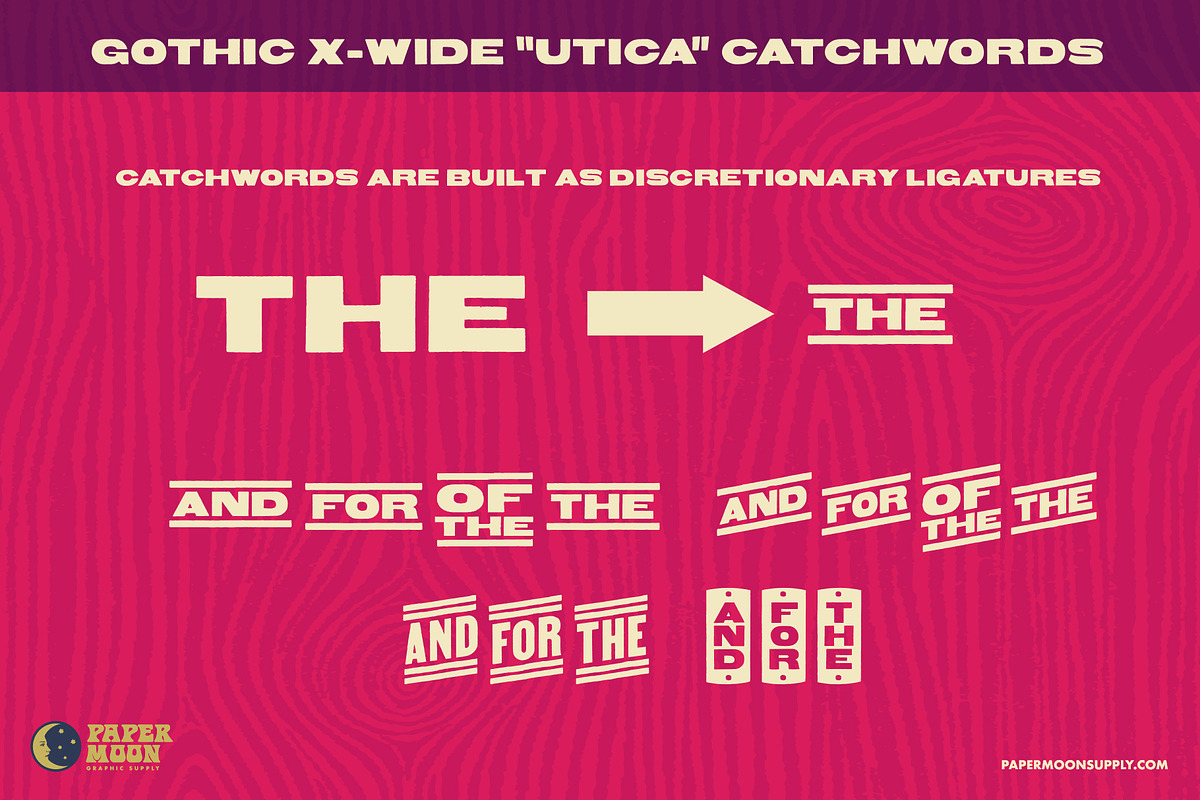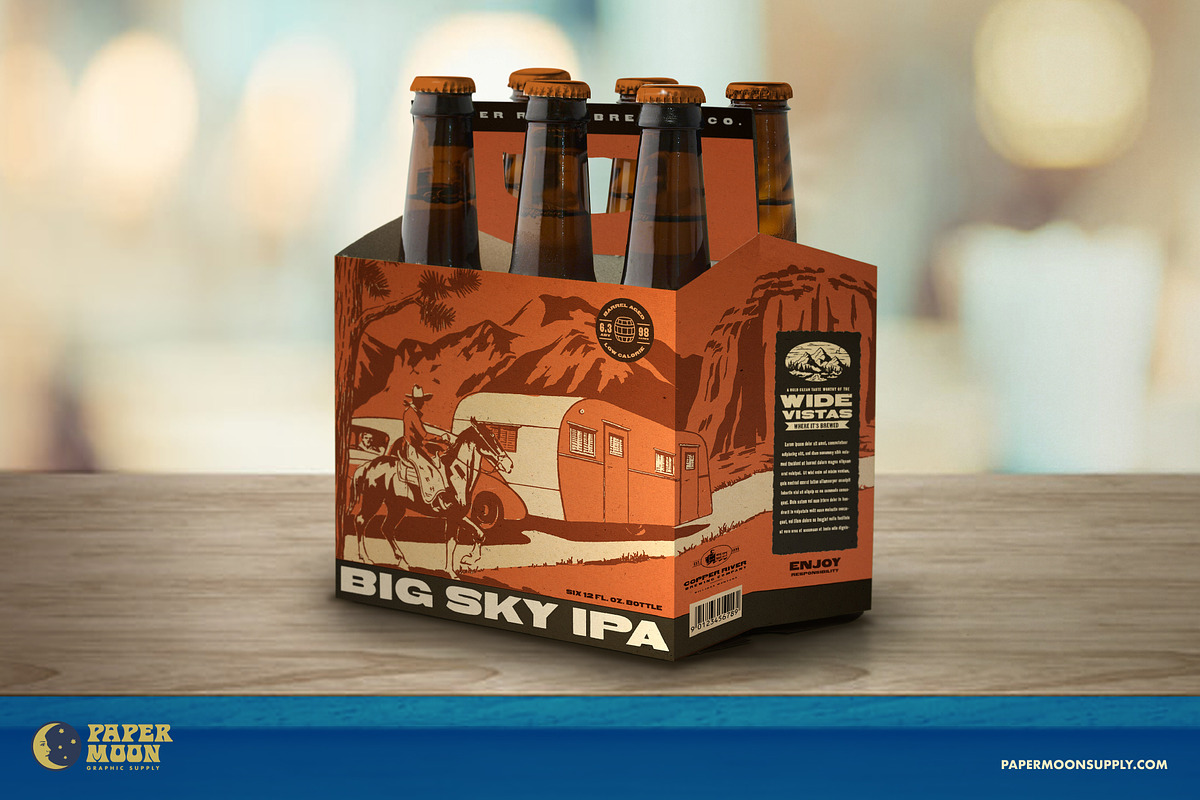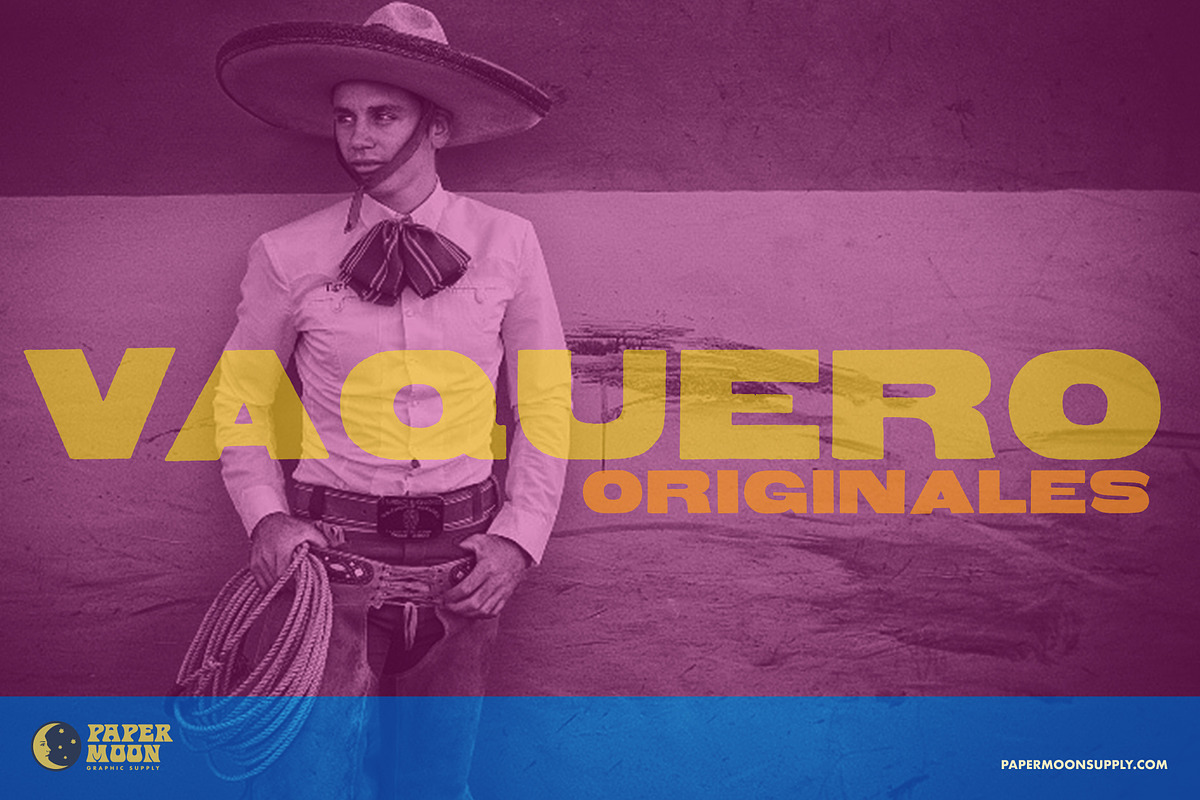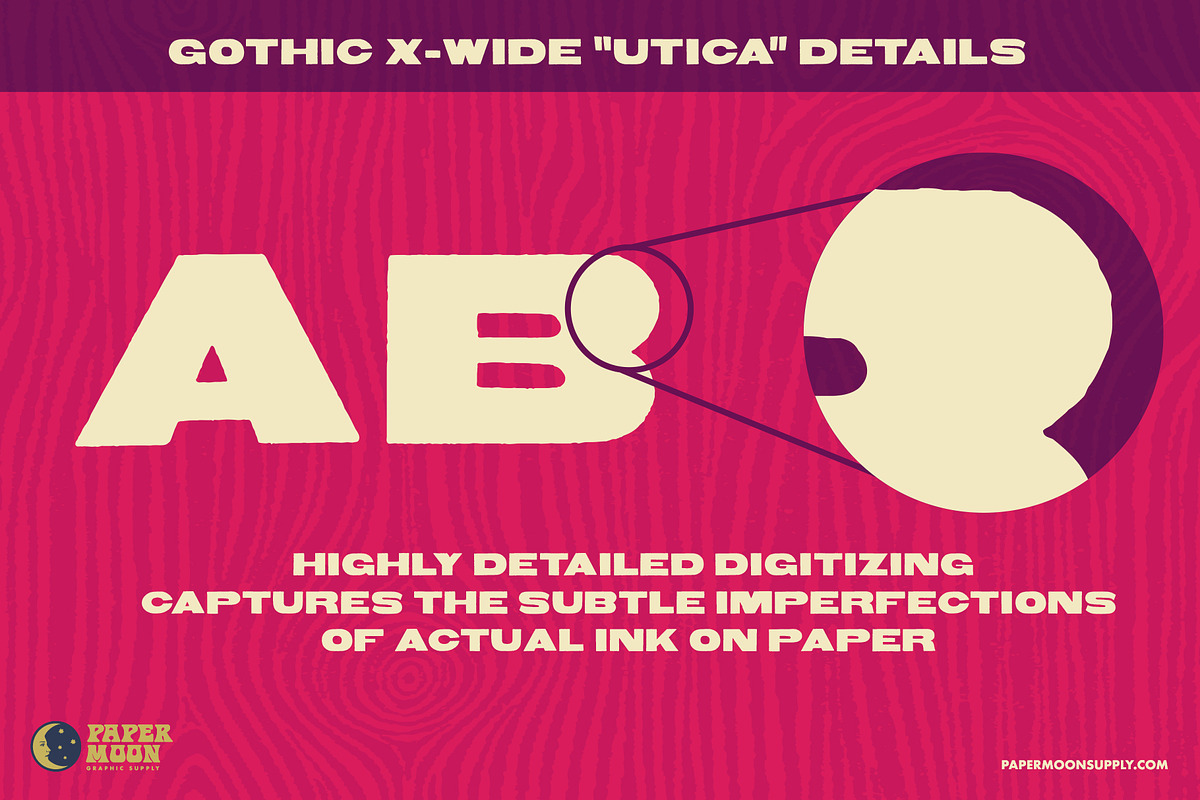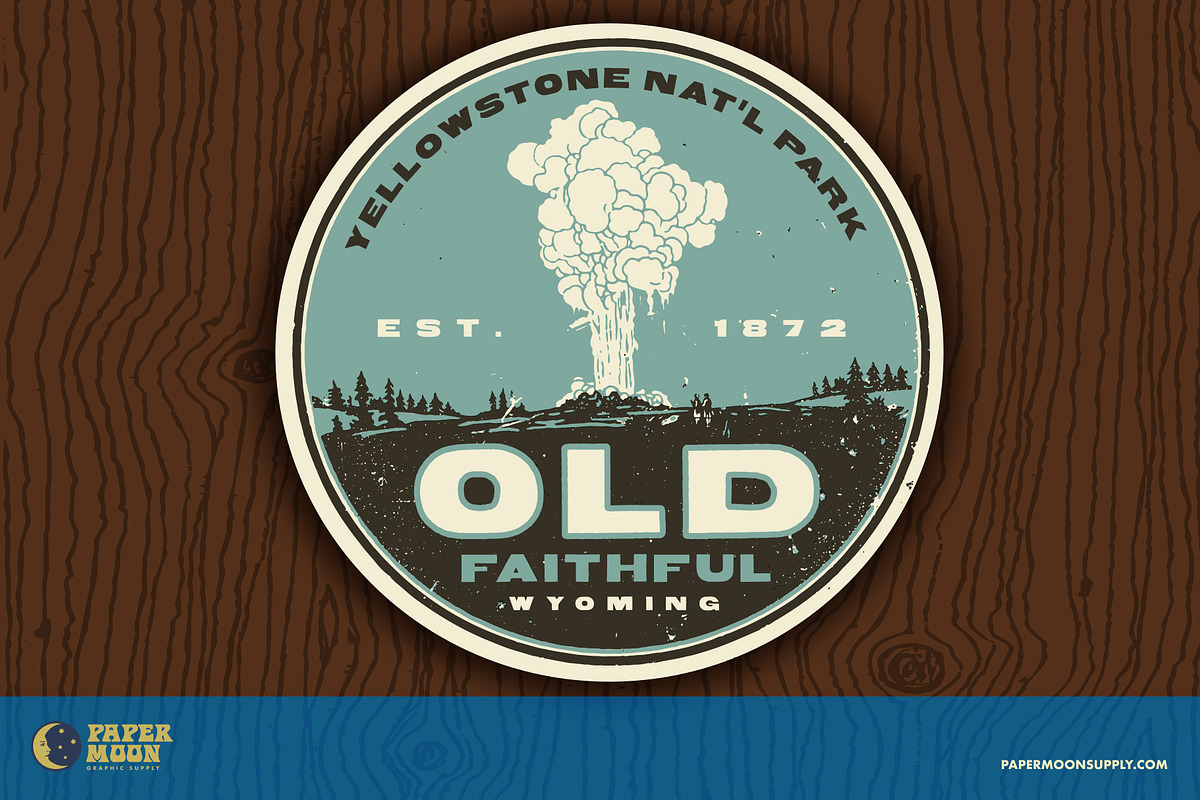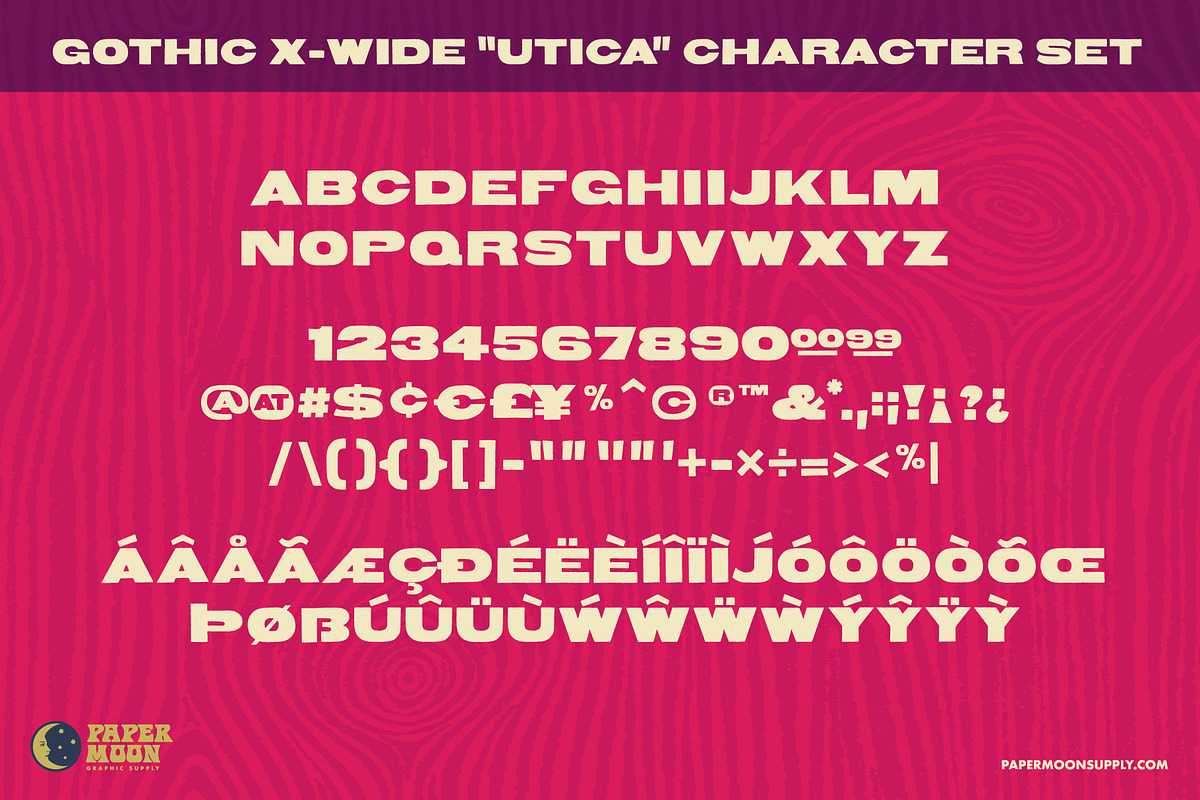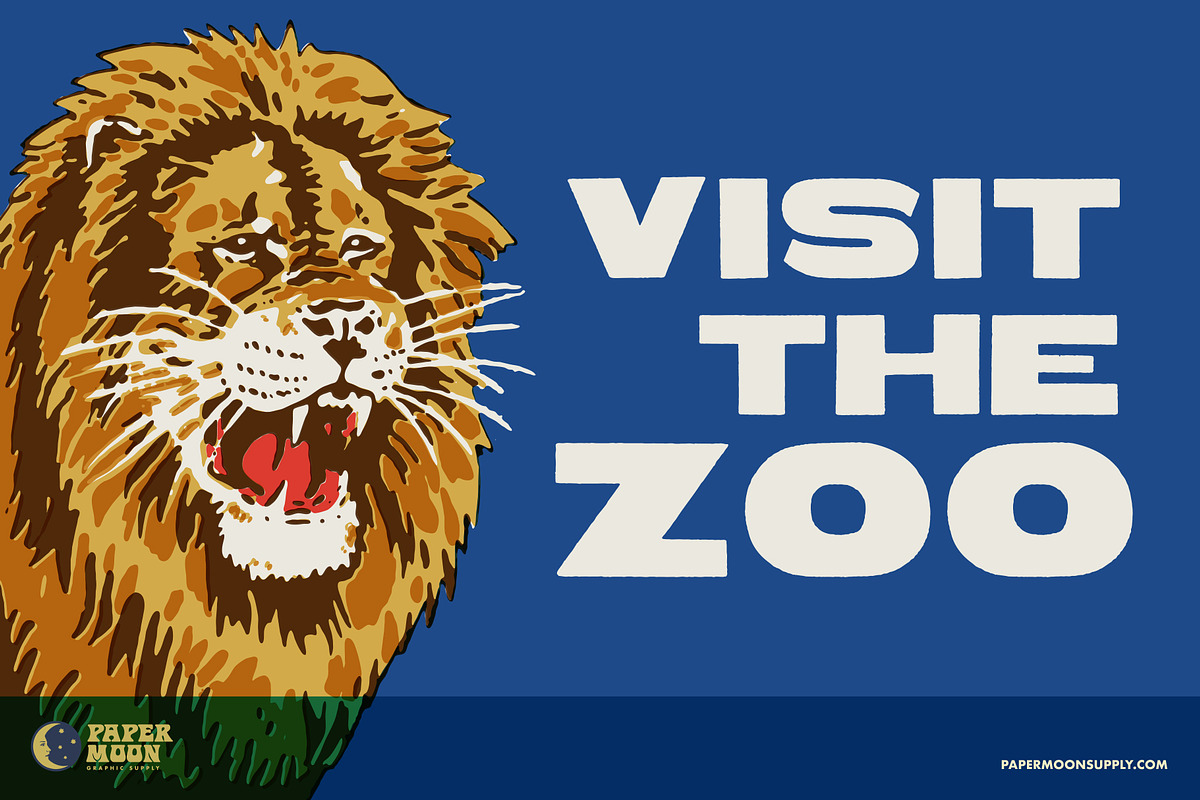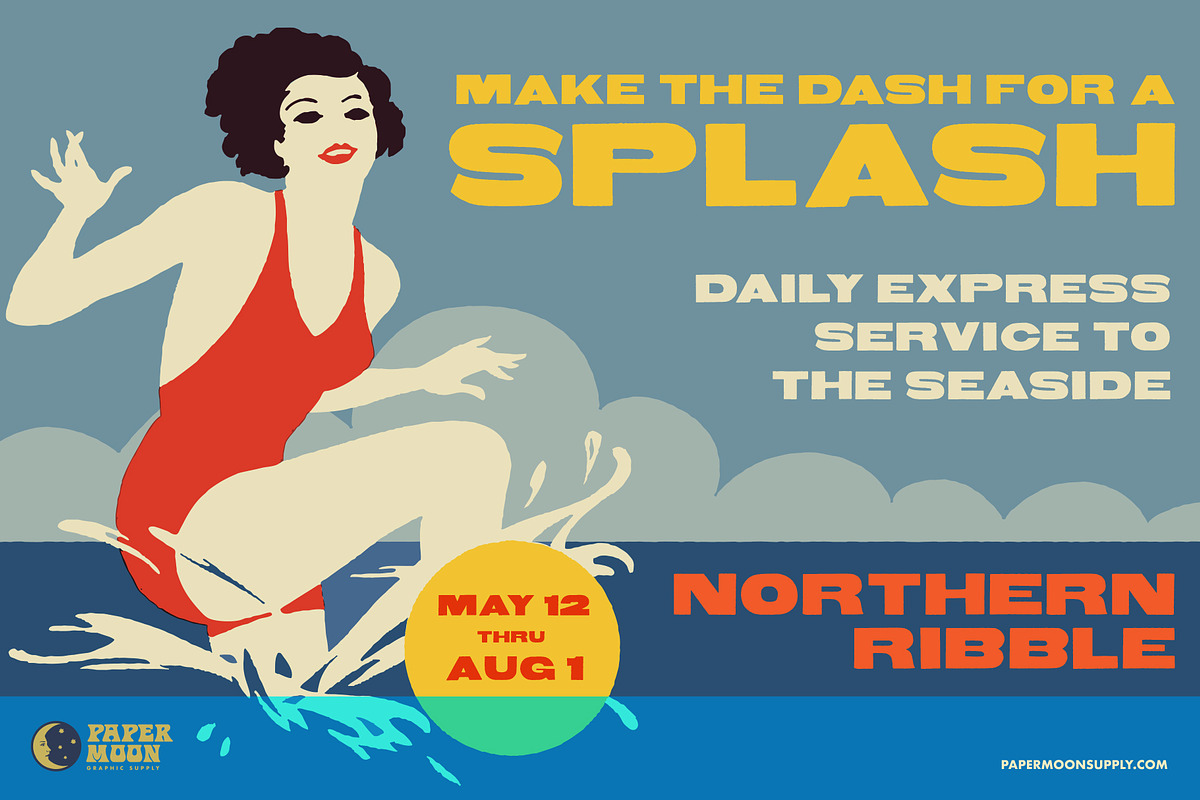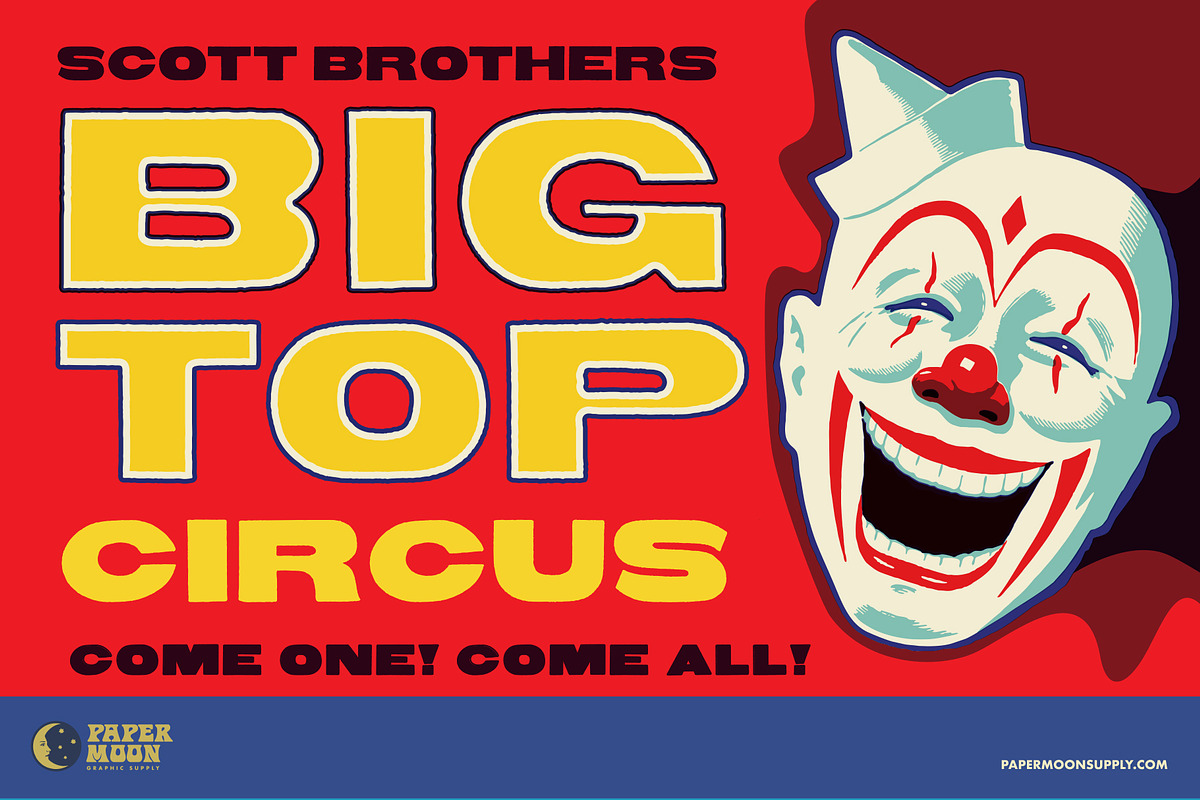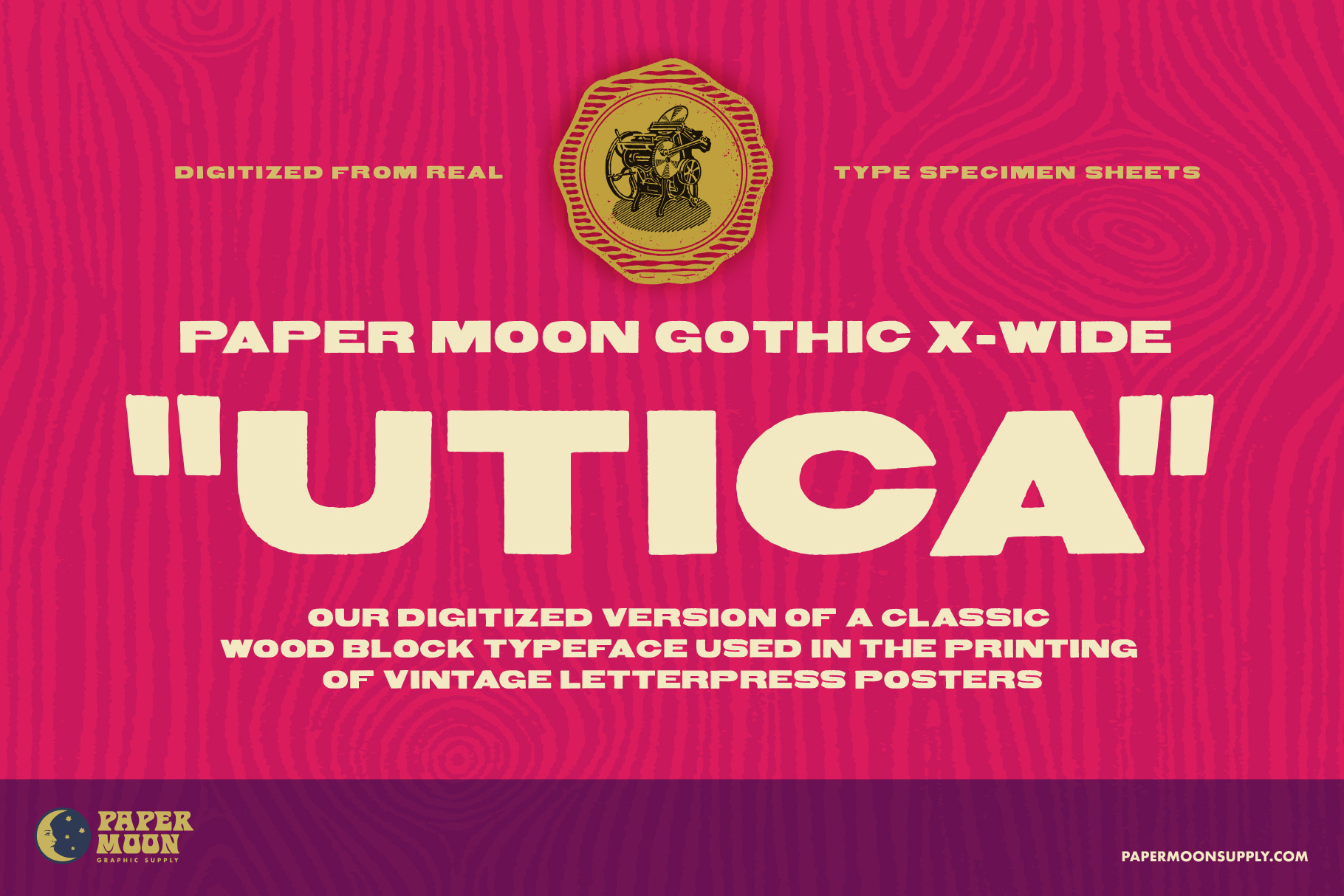
Utica Letterpress Font
A new digitized letterpress font seen on vintage concert posters and show prints.
Utica was inspired by classic hand-set wood type used on vintage letterpress concert posters, broadsides, playbills, and show prints by print-houses like Globe Poster, Enquirer Printing, and Hatch Show Print.
- Digital reproductions from actual letterpress printed specimen sheets
- Includes four sets of catchwords
- Highly-detailed ink-on-paper edge reproduction
- Complete alphabet, number, and punctuation sets